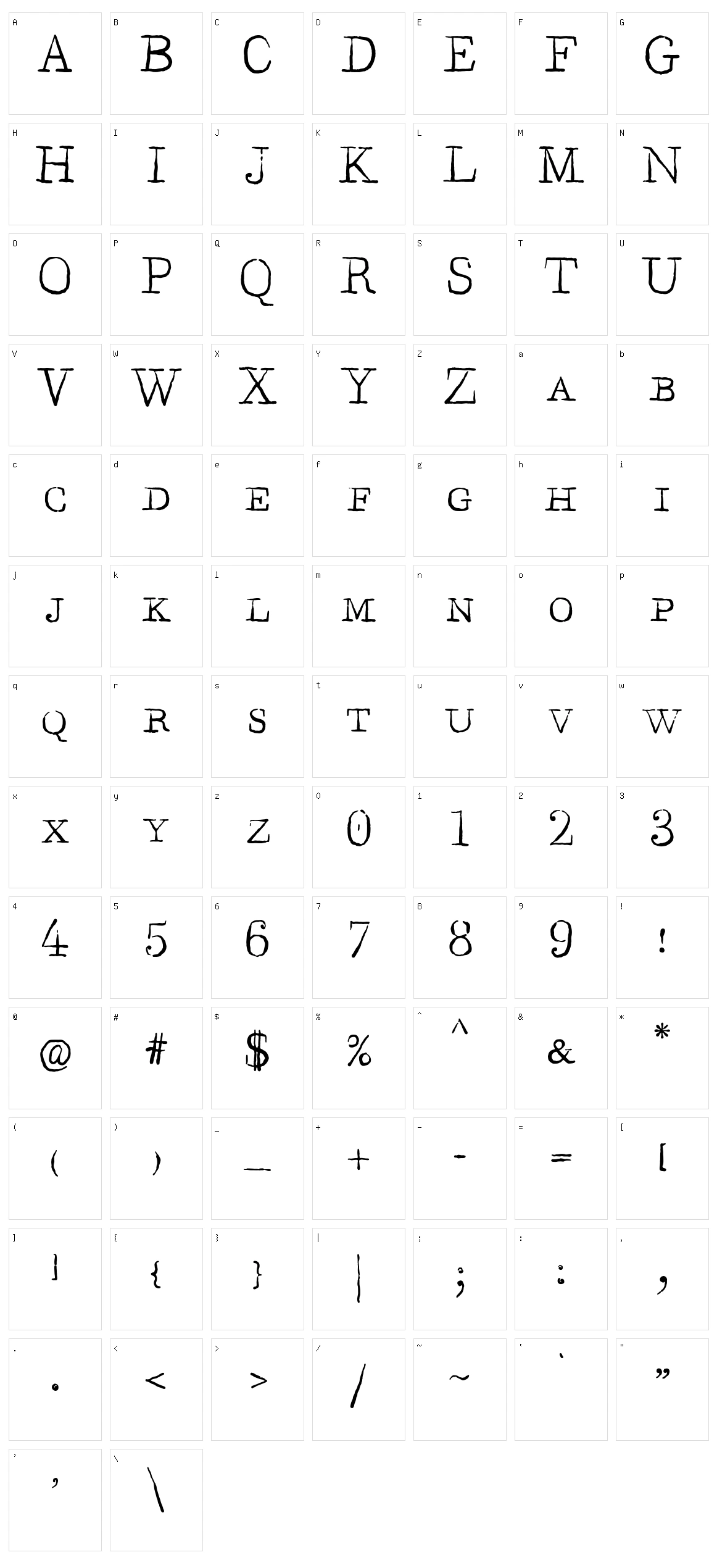
LEGEND OF THE GIANT PENGUIN SEA MONSTER
A Font by S. John Ross
Tales of the Giant Penguin Sea Monster are fanciful and often misleading, painting images of at towering, thunderous beast splitting the hulls of wooden sailing ships, flooding coastal towns in the frozen wash of the sea, and downing great whales as a smaller penguin might swallow a fish. In truth, the Giant Penguin Sea Monster is seldom taller than seven feet, and its most potent weapons are a devastatingly cute wiggle of its great tail, the allure of its tummy-swirl, and the warmest hugs known to icy waters. Rumors of Giant Penguin Sea Monsters frequenting urban brothels are no doubt slander meant to titillate readers of disreputable gossip magazines.